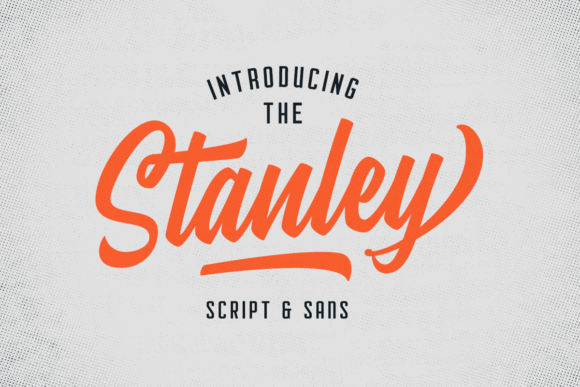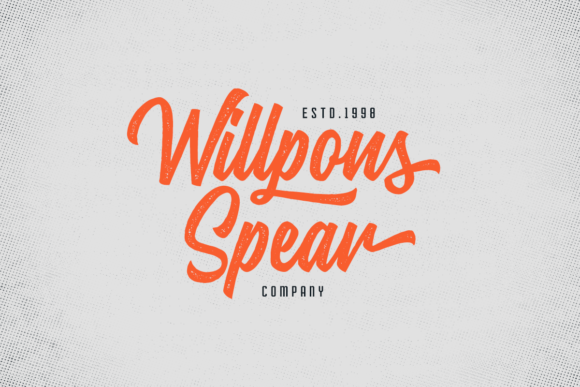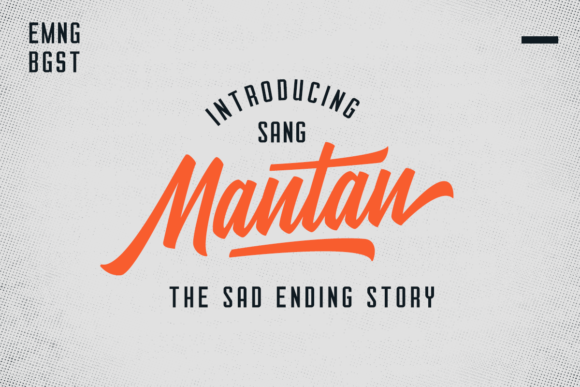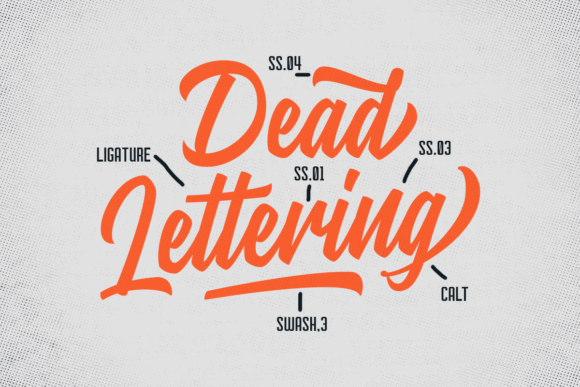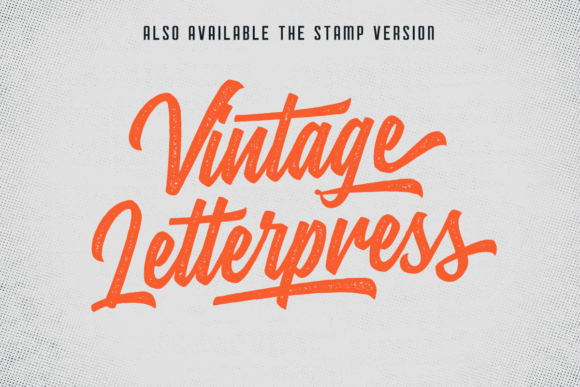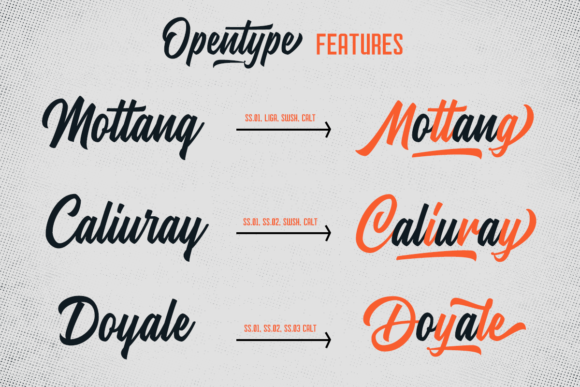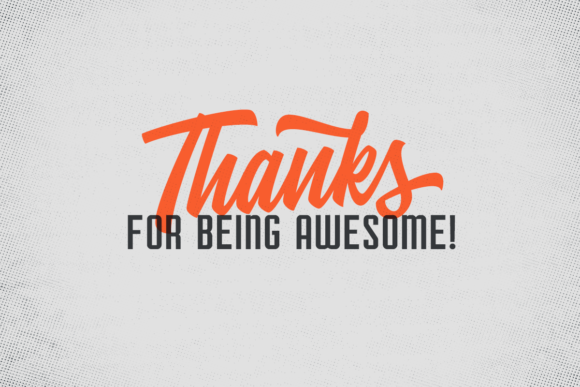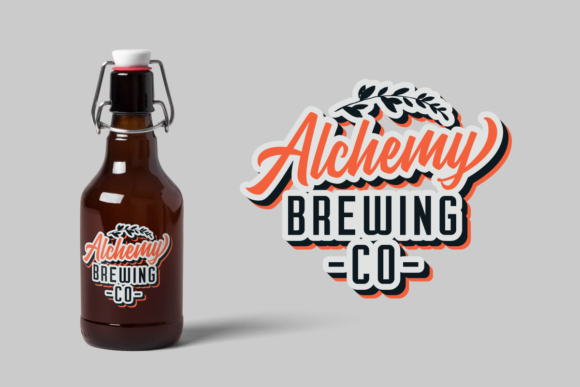
Stanley Font
About Stanley Font
Stanley is a playful script family with a modern and versatile feel. Get inspired by its authentic and nostalgic charm!